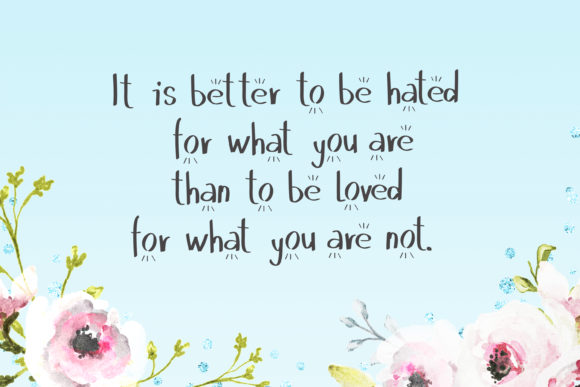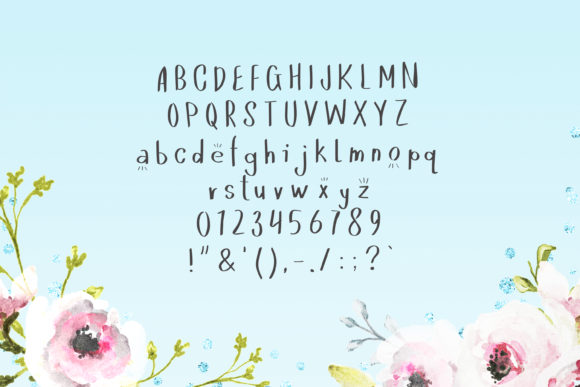
Introducing Blask Font: A Simple, Friendly, and Neat Lettered Handwritten Font
Are you tired of using the same old fonts for your design projects? Look no further than Blask Font, a simple, friendly, and neat lettered handwritten font that’s perfect for a wide variety of contexts. With its quirky touch, Blask Font is sure to add a personal touch to your designs and make them stand out from the crowd.
What is Blask Font?
Blask Font is a beautifully crafted handwritten font that’s designed to be easy to read and fun to use. Its simple and neat lettering makes it perfect for a wide range of design projects, from digital graphics to print materials. Whether you’re a designer, crafter, or DIY enthusiast, Blask Font is a great addition to your font collection.
Key Features of Blask Font
- Simple and Friendly Design: Blask Font has a clean and simple design that’s easy to read and understand.
- Neat Lettering: The font features neat and tidy lettering that’s perfect for creating professional-looking designs.
- Quirky Touch: Blask Font has a little bit of quirkiness to it, making it perfect for designers who want to add a personal touch to their work.
- Versatile: Blask Font can be used in a wide variety of contexts, from digital graphics to print materials.
Why Use Blask Font?
There are many reasons why you should consider using Blask Font for your design projects. Here are just a few:
- Add a Personal Touch: Blask Font is perfect for designers who want to add a personal touch to their work. Its quirky design makes it stand out from more traditional fonts.
- Easy to Read: The font is easy to read, making it perfect for creating designs that need to be understood quickly.
- Versatile: Blask Font can be used in a wide range of design projects, from digital graphics to print materials.
- Time-Saving: With Blask Font, you can create professional-looking designs quickly and easily, saving you time and effort.
How to Use Blask Font
Using Blask Font is easy. Here are a few tips to get you started:
- Pair it with Other Fonts: Blask Font looks great when paired with other fonts. Try pairing it with a bold font for a striking contrast.
- Use it for Headings: Blask Font is perfect for headings and titles. Use it to add a personal touch to your designs.
- Experiment with Colors: Blask Font looks great in a variety of colors. Experiment with different colors to find the one that works best for your design.
Who is Blask Font for?
Blask Font is perfect for a wide range of designers and crafters, including:
- Graphic Designers: Blask Font is perfect for graphic designers who want to add a personal touch to their designs.
- Crafters: Blask Font is great for crafters who want to create professional-looking designs for their handmade products.
- DIY Enthusiasts: Blask Font is perfect for DIY enthusiasts who want to create their own designs for their home decor projects.
In conclusion, Blask Font is a simple, friendly, and neat lettered handwritten font that’s perfect for a wide variety of design projects. With its quirky touch and versatile design, Blask Font is sure to add a personal touch to your designs and make them stand out from the crowd. Whether you’re a designer, crafter, or DIY enthusiast, Blask Font is a great addition to your font collection.